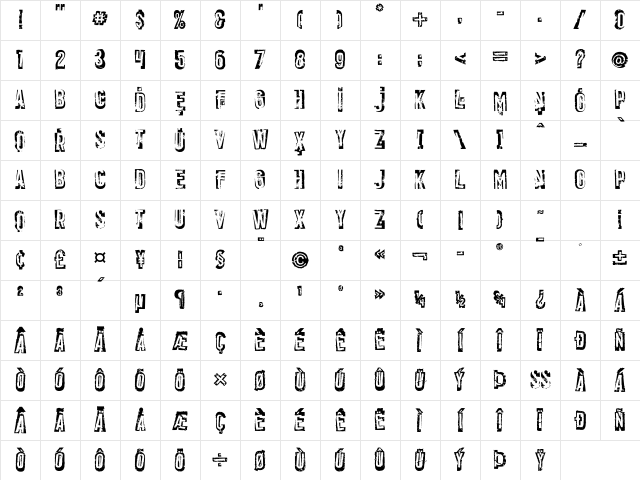
Panic ITC Std Regular
Designer: Wayne Thompson
Design Context for Panic ITC Std
Panic ITC Std is a composed and adaptable typeface that performs quietly and consistently across a wide range of design contexts.